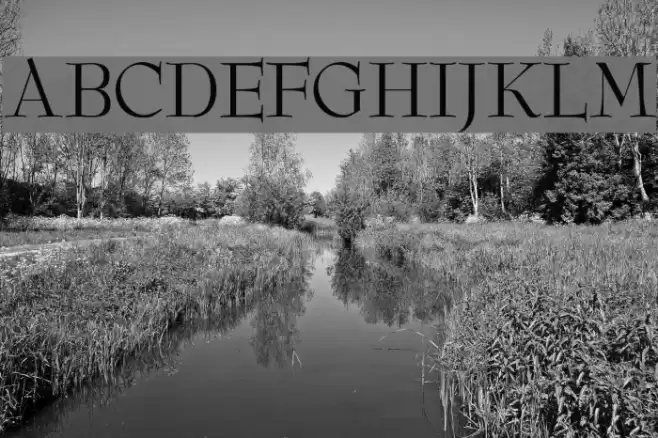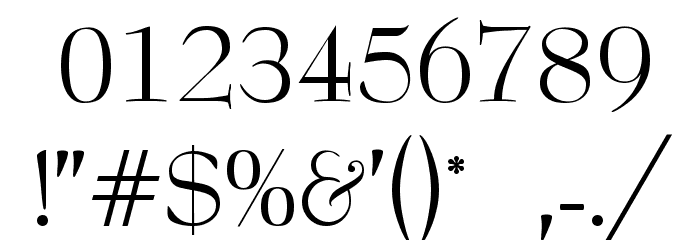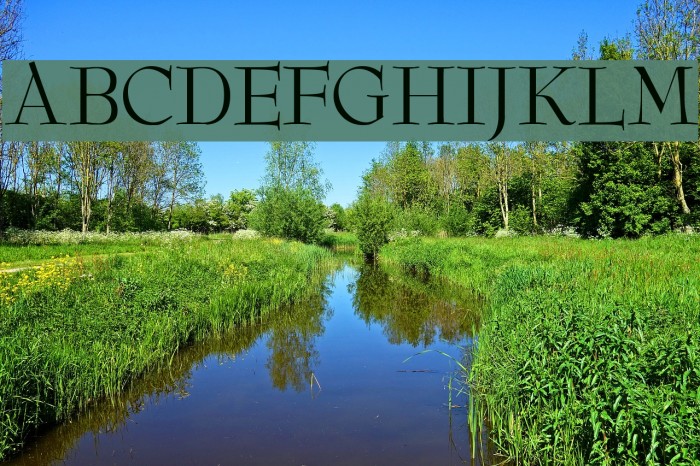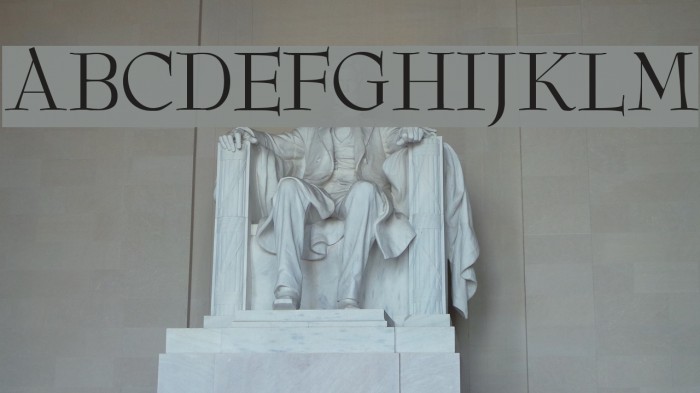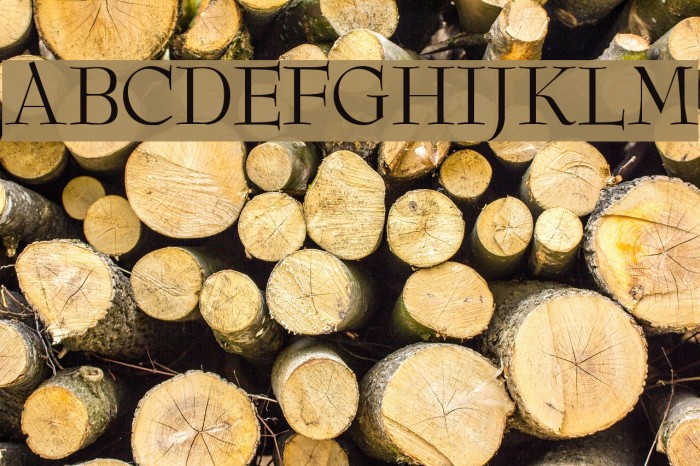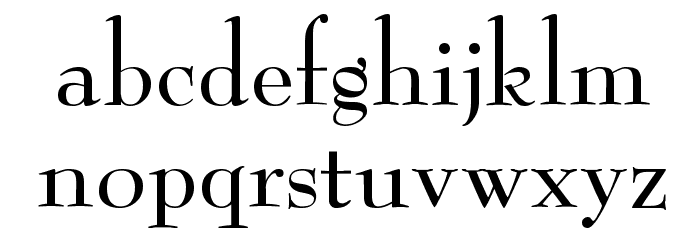
ReedFont Description
This font features a classic serif design with elegant, sharp serifs that give it a sophisticated and timeless appearance. The uppercase letters are bold and commanding, while the lowercase letters maintain a refined and balanced look. The numerals are clear and distinct, making them easily readable. Special characters are well-integrated, maintaining the overall aesthetic. The font's high contrast in stroke thickness adds to its elegance, making it suitable for formal and professional settings.
A classic serif font with elegant, sharp serifs and high contrast from Typewriter fonts.
- Proposed Projects: Ideal for use in editorial design, book covers, formal invitations, and branding for luxury products.
- Overall Style: Classic